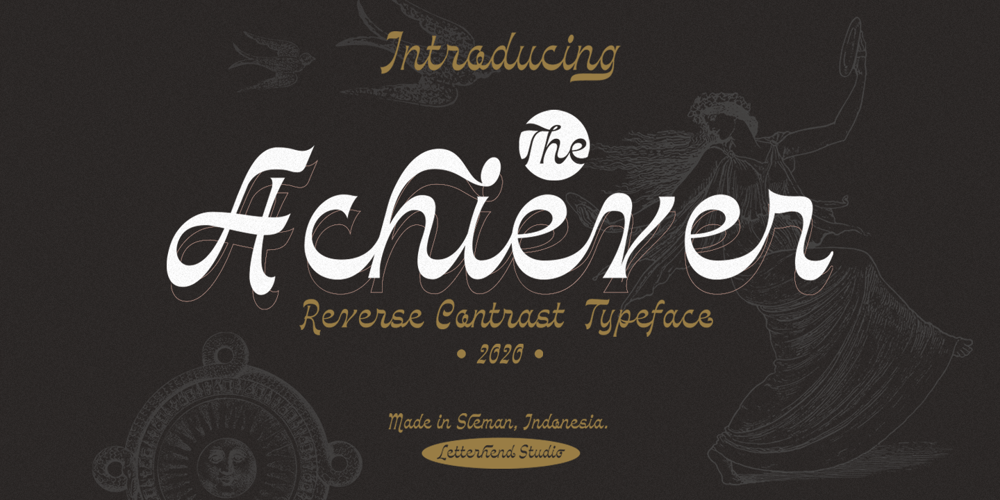
Achiever Font Family was designed by Hendry Juanda and published by Letterhend. Achiever contains 1 styles and family package options. Introducing, The Achiever- a unique display script with reverse contrast. The unusual reverse contrast make this typeface one of a kind. This type of font perfectly made to be applied especially in logo, and the other various formal forms such as invitations, labels, logos, magazines, books, greeting / wedding cards, packaging, fashion, make up, stationery, novels, labels or any type of advertising purpose.Features : uppercase & lowercase numbers and punctuation multilingual alternates and ligatures PUA encoded We highly recommend using a program that supports OpenType features and Glyphs panels like many of Adobe apps and Corel Draw, so you can see and access all Glyph variations. How to access opentype feature : letterhend.com/tutorials/using-opentype-feature-in-any-software/Email us to letterhend@gmail.com if you need something! Happy Designing!